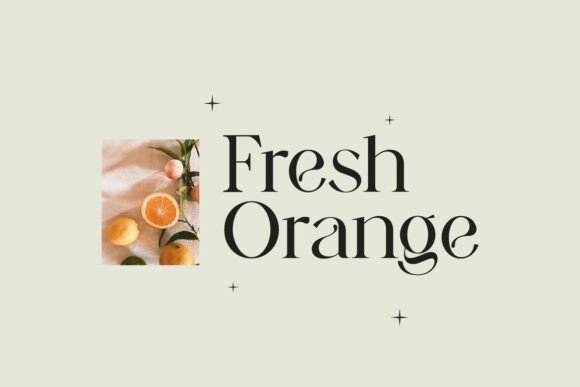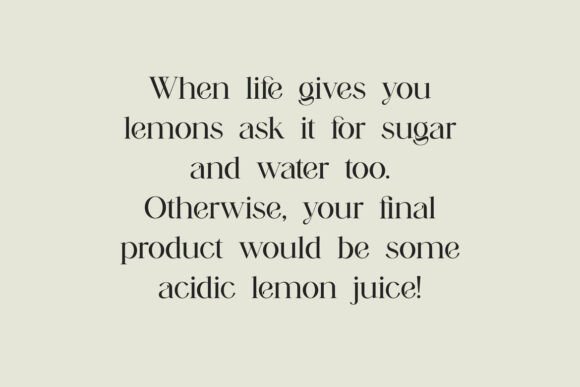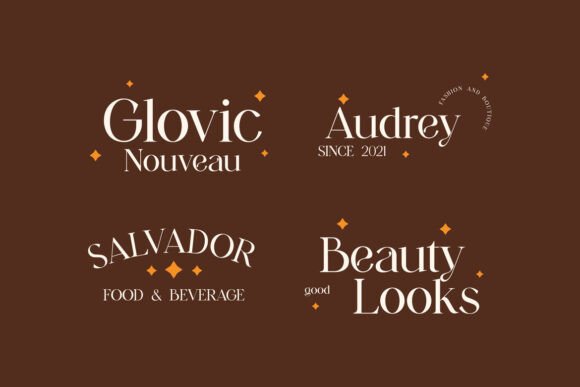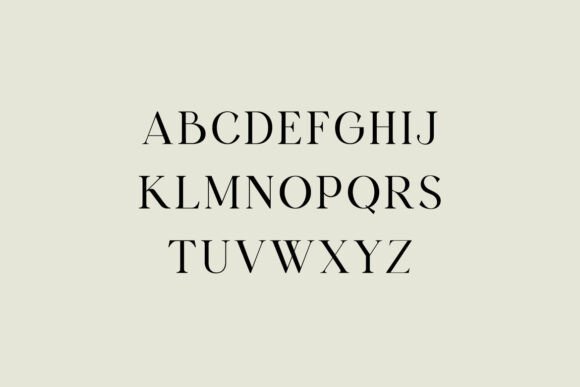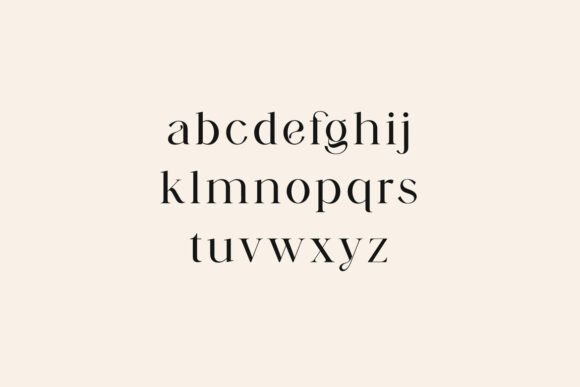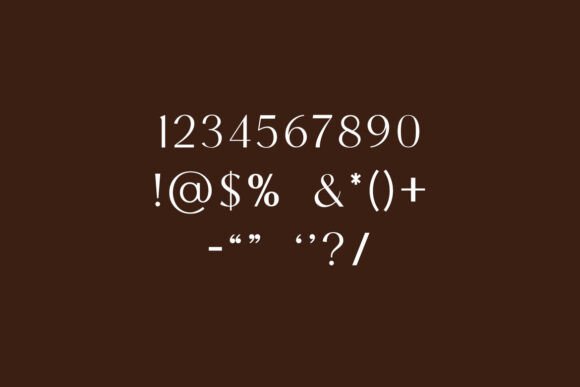
Apostrophic Font: Elevate Your Design with Elegance and Sophistication
In the world of typography, fonts play a crucial role in conveying the tone and personality of a brand or design. For those seeking a font that exudes elegance, sophistication, and class, look no further than Apostrophic Elegant Serif Font. This stunning font is designed to make a lasting impression, making it perfect for a wide range of projects, from signature and stationery to logo design, wedding typography, and more.
The Essence of Apostrophic Elegant Serif Font
Apostrophic Elegant Serif Font is a masterpiece of typographic design, boasting a unique blend of classic and modern elements. Its elegant serif design lends a touch of sophistication to any project, while its clean lines and precise curves ensure exceptional readability. This font is meticulously crafted to convey a sense of refinement and luxury, making it an ideal choice for designers and crafters seeking to elevate their work.
One of the standout features of Apostrophic Elegant Serif Font is its versatility. This font can be used across a diverse range of projects, including:
- Signature and stationery design
- Logo design and branding
- Wedding typography and invitations
- Magazine and book covers
- Website headers and UI design
- Fashion-related branding and editorial design
Whether you’re working on a personal project or a client’s brief, Apostrophic Elegant Serif Font is sure to impress. Its adaptability and range make it an excellent addition to any designer’s toolkit.
Masculine and Feminine Qualities
Apostrophic Elegant Serif Font is uniquely suited to display both masculine and feminine qualities, making it an excellent choice for fashion-related branding and editorial design. The font’s classic lines and sophisticated aesthetic appeal to a broad audience, allowing designers to create stunning visuals that cater to diverse tastes and preferences.
Why Choose Apostrophic Elegant Serif Font?
With so many fonts available, why choose Apostrophic Elegant Serif Font? Here are just a few compelling reasons:
- Elegance and sophistication: This font exudes refinement and luxury, making it perfect for high-end branding and design projects.
- Exceptional readability: The clean lines and precise curves of Apostrophic Elegant Serif Font ensure that your text is easy to read, even at small sizes.
- Versatility: This font can be used across a wide range of projects, from print to digital.
- Masculine and feminine appeal: Apostrophic Elegant Serif Font’s unique blend of classic and modern elements makes it suitable for a broad audience.
Tips for Using Apostrophic Elegant Serif Font
To get the most out of Apostrophic Elegant Serif Font, consider the following tips:
- Pair with contrasting fonts: Combine Apostrophic Elegant Serif Font with a sans-serif font or a script font to create visual interest and hierarchy.
- Experiment with font sizes: Use different font sizes to create emphasis and add depth to your design.
- Pay attention to spacing: Ensure that your text has sufficient spacing to maintain readability and prevent overcrowding.
Apostrophic Elegant Serif Font is a stunning addition to any designer’s toolkit. Its elegant serif design, exceptional readability, and versatility make it perfect for a wide range of projects. Whether you’re working on a branding project, wedding typography, or editorial design, this font is sure to impress. With its unique blend of classic and modern elements, Apostrophic Elegant Serif Font is the perfect choice for designers and crafters seeking to elevate their work with elegance and sophistication.